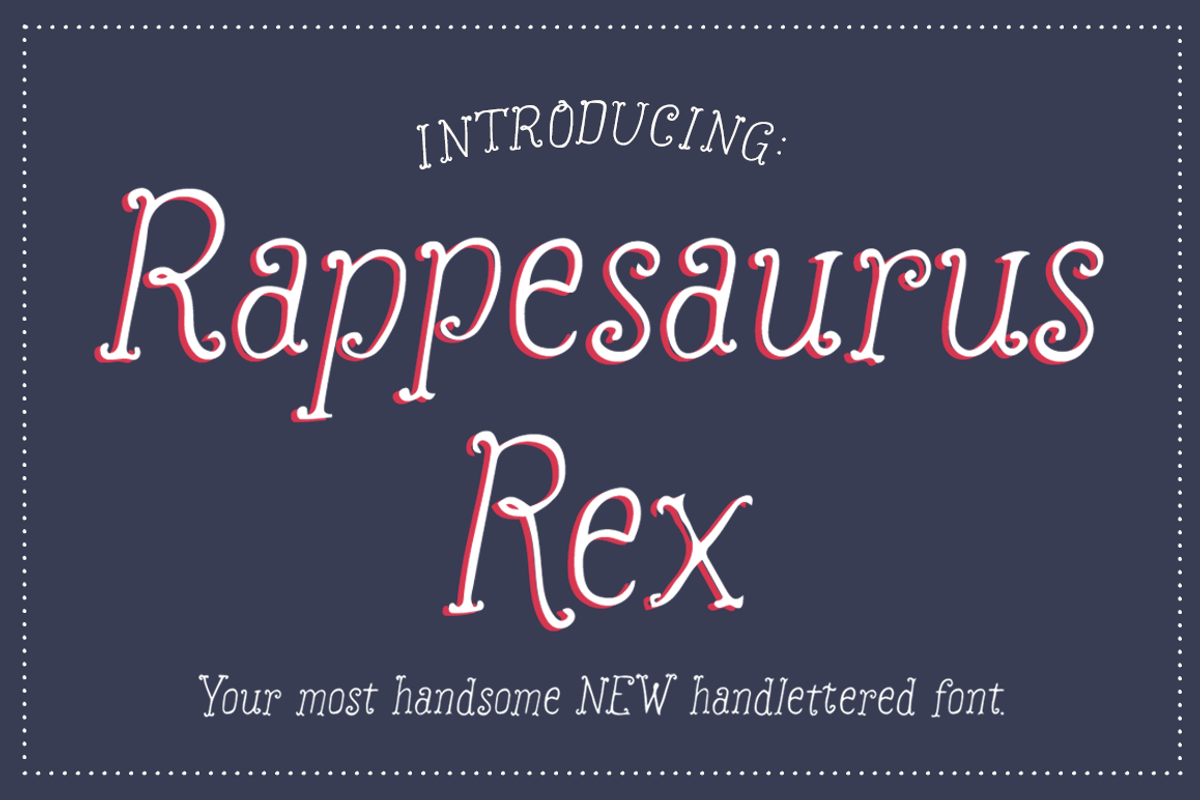
The Rappesaurus Rex Font Free Download is a bold and quirky typeface that brings a fun, energetic vibe to your designs. With its unique letterforms and dynamic style, this font is perfect for creating eye-catching logos, posters, event promotions, and branding materials. Whether you’re working on a playful project, a retro design, or need a font with a bold personality, Rappesaurus Rex adds a fun, creative touch.
Rappesaurus Rex Font Free Download is ideal for designers looking to add a bold, modern style to their work. Perfect for creative projects that demand attention and energy, this font will help make your designs stand out. Download this fun and unique font today and bring a powerful, energetic look to your creative projects!